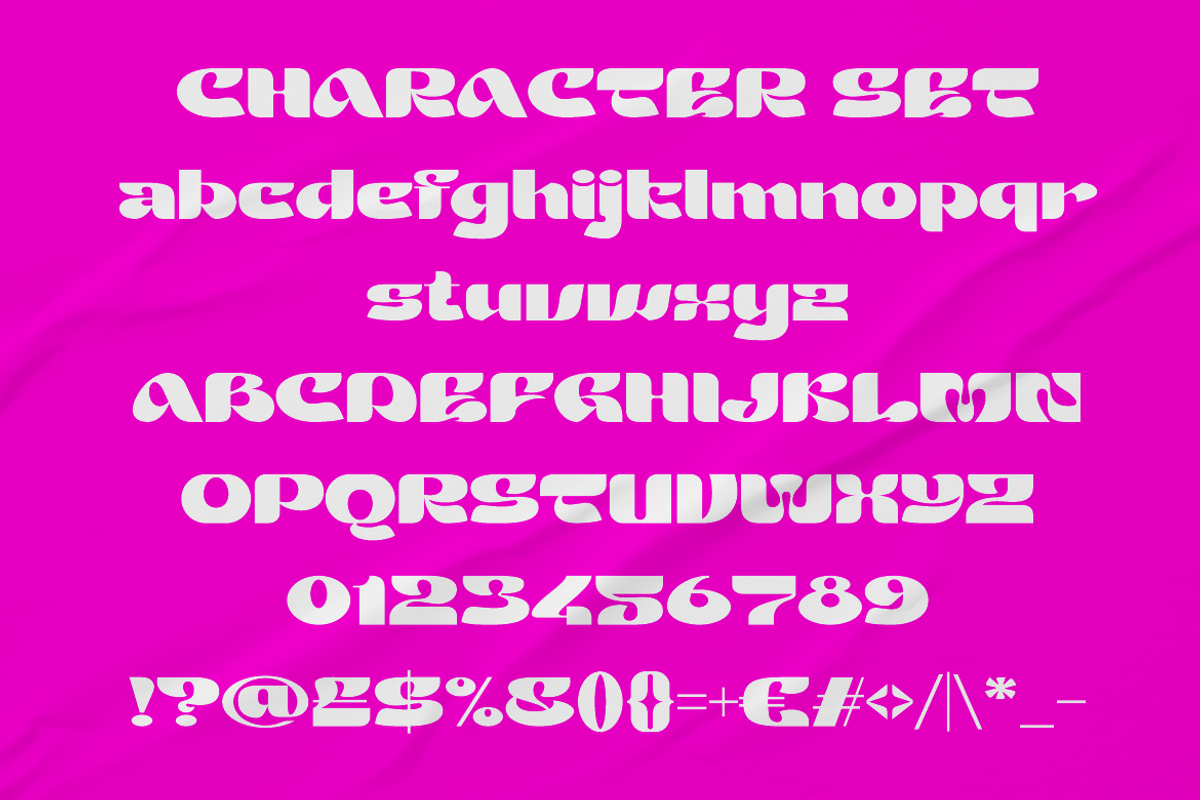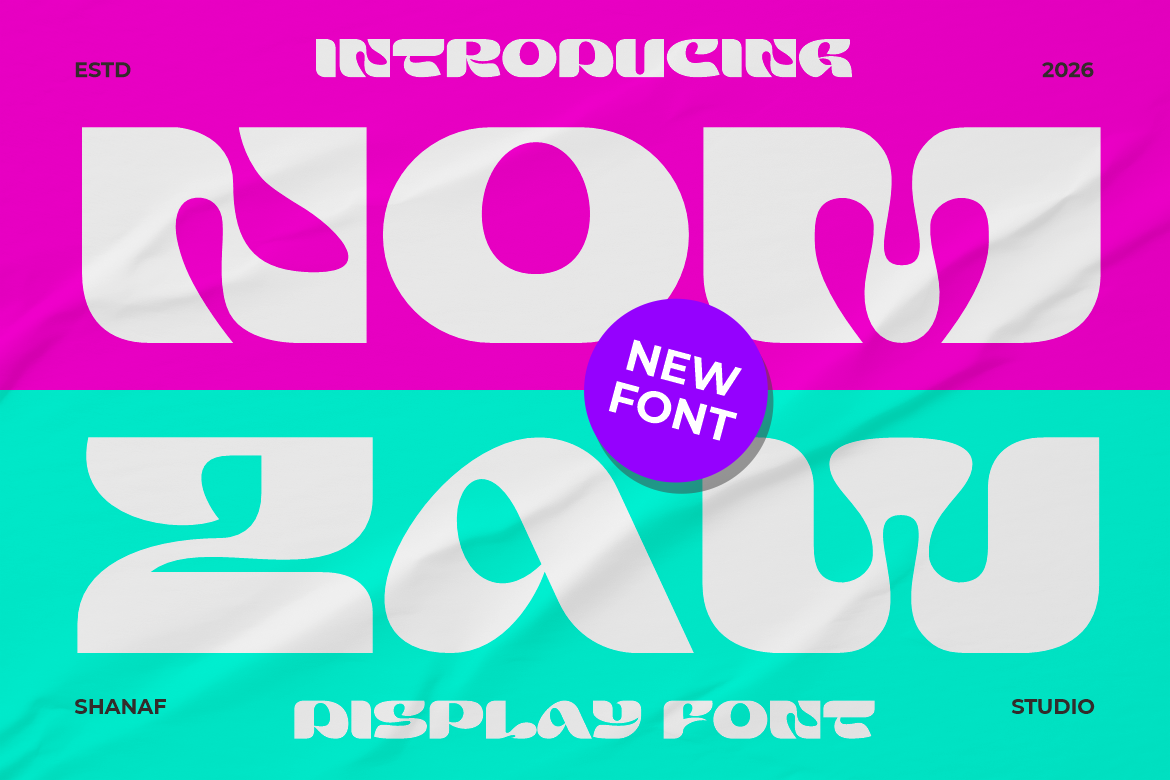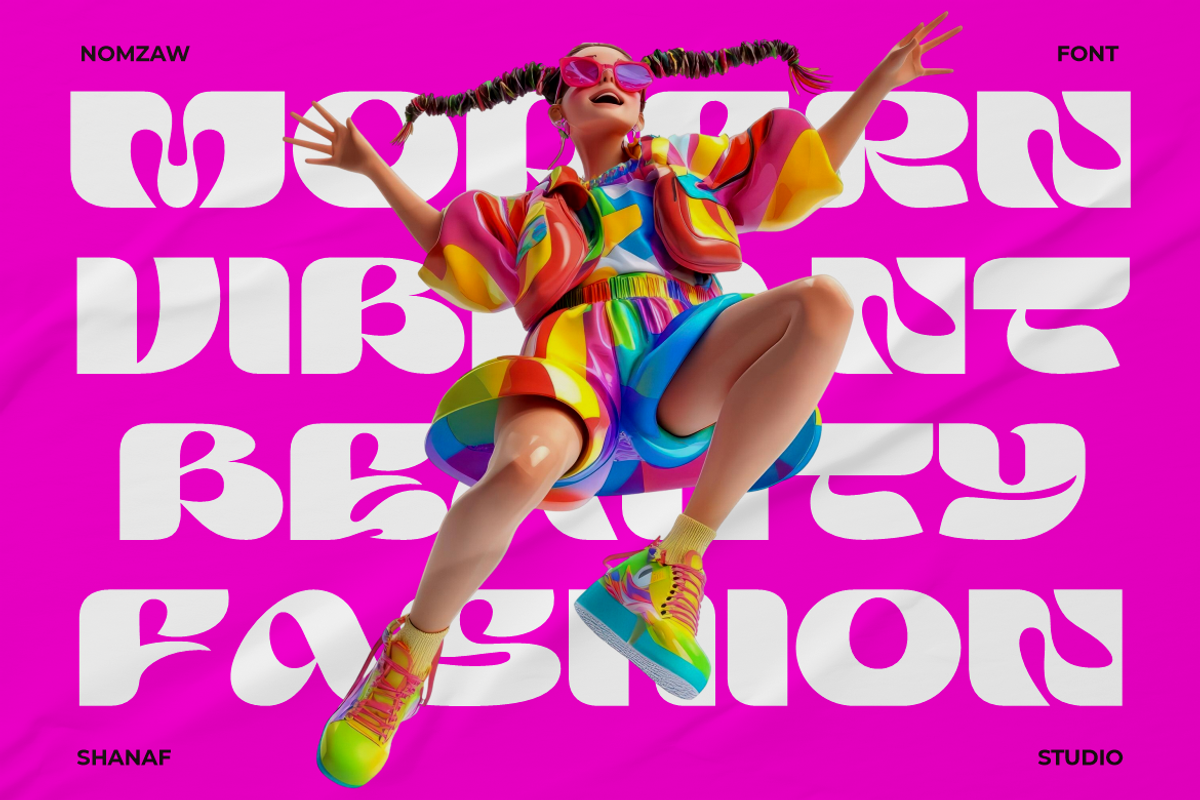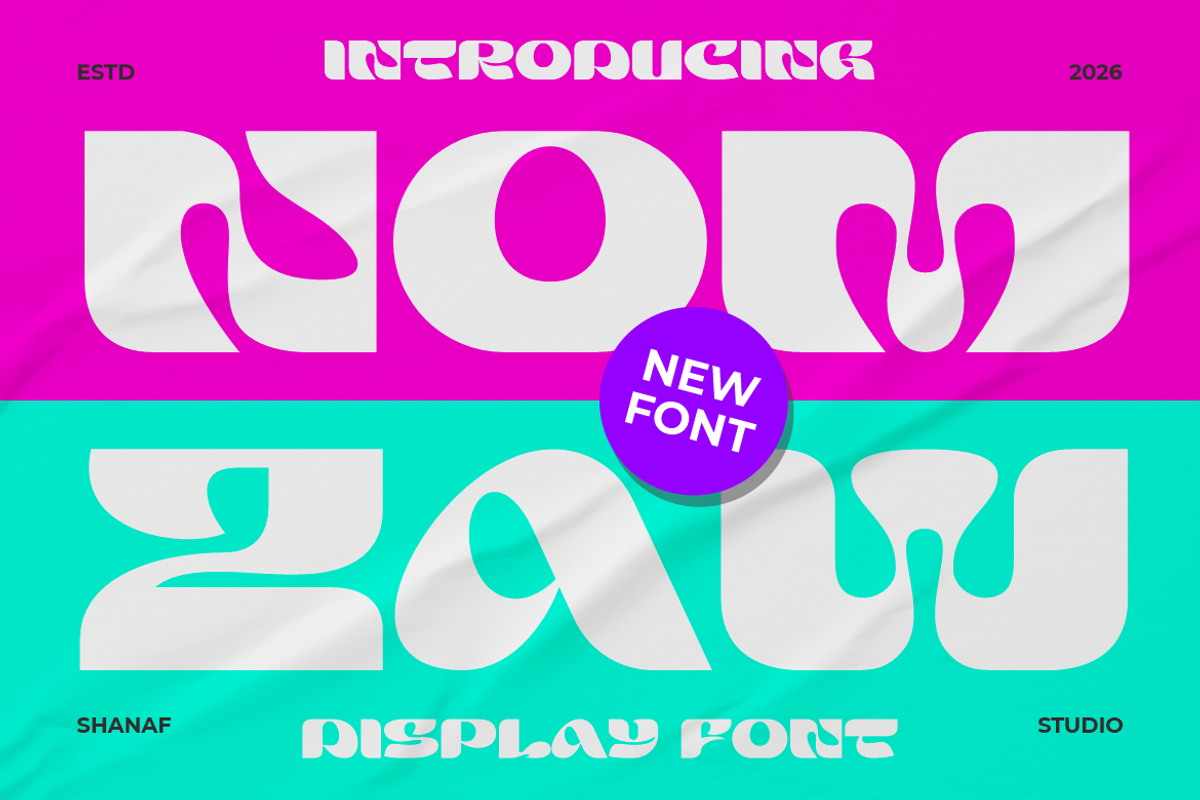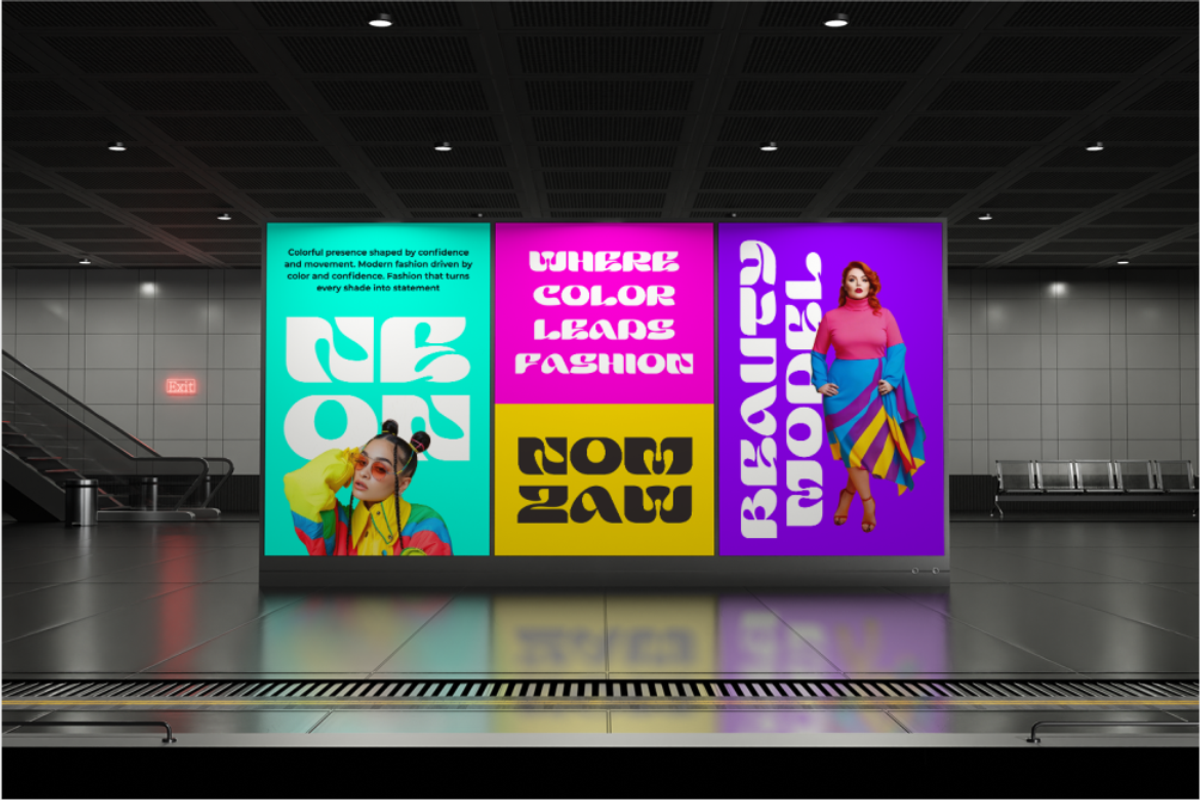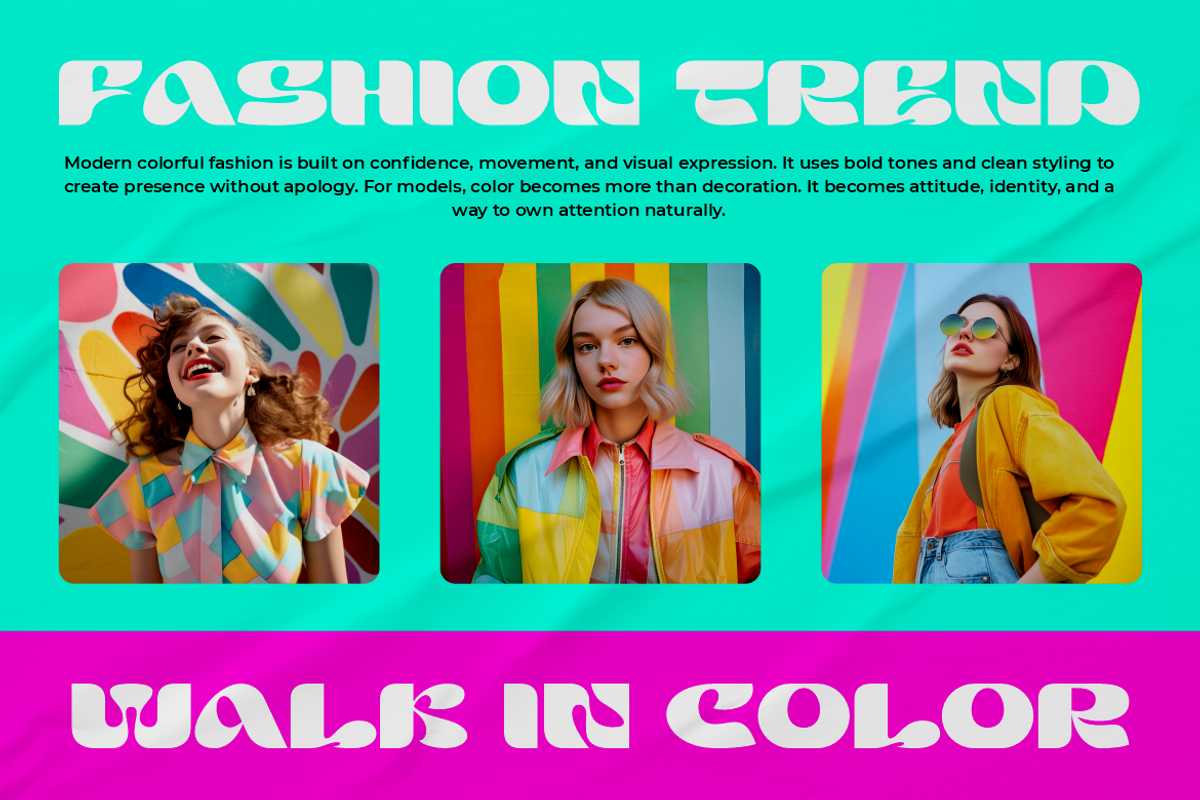
Nomza Modern Bold Display Font
Nomza Modern Bold Display Font brings a bold visual voice with chunky, rounded, and experimental letterforms. Each character uses thick weight, soft corners, and playful negative spaces. The shape feels expressive, futuristic, funky, and pop inspired without losing strong headline impact. It works well for logo design, branding, advertising, poster titles, magazine covers, stickers, social media graphics, and product campaigns. This font fits creative studios, music events, youth brands, entertainment projects, digital products, and visual identities that need loud attention.
The font has a wide and heavy structure that creates instant recognition in short words. Its curved cuts and unusual counters add rhythm, movement, and a fresh graphic personality. Designers can use it for campaign headlines, event posters, product labels, promo banners, book covers, card designs, and website hero titles. The style supports pop culture, street visuals, creative advertising, music branding, and digital launch concepts. Nomza Modern Bold Display Font also gives logo projects a strong shape for memorable brand marks.
This font suits more than one creative business category. It can support product branding, music graphics, event promotion, gallery posters, tech campaigns, studio logos, and social media advertising. Its bold personality also works for snack labels, drink campaigns, game titles, magazine layouts, and entertainment branding. Use it when a design needs energy, confidence, and a graphic pop mood. The character set includes uppercase, lowercase, numbers, punctuation, and multilingual support for broader creative use.